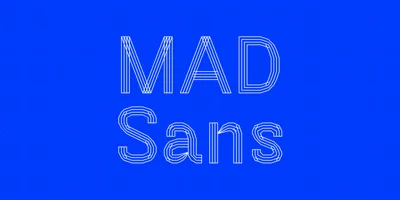
MAD Sans Font
MAD Sans Font is a clean and contemporary sans-serif typeface perfect for branding, web design, editorial layouts, and advertising materials. Its sleek and minimalistic design brings a fresh and professional look to any project.
What makes this font so exciting is its versatility and clarity, allowing it to adapt seamlessly to a variety of design styles, from corporate to creative. MAD Sans Font ensures your message is delivered with impact and sophistication.
MAD Sans Font includes multiple weights such as Light, Regular, Medium, and Bold, giving designers the flexibility to create dynamic typographic hierarchies and engaging compositions.